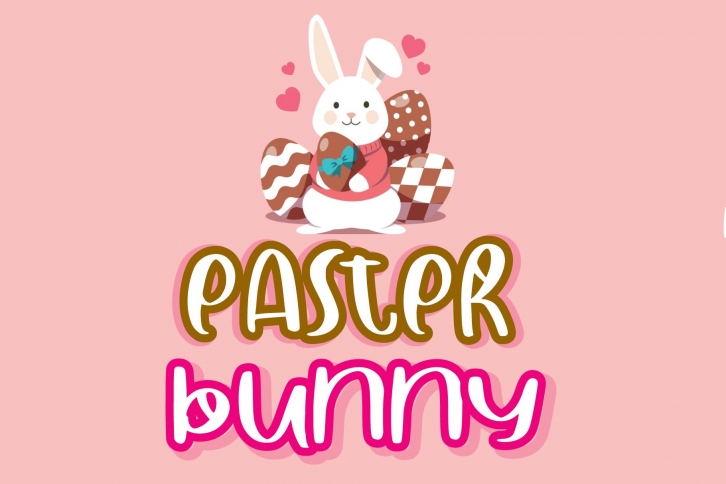
rabbit is a gorgeous font that was realeased on December 9, 2020. The font can be used in many style contexts and design environments. Perfect for invitations, magazines, websites, logos, and more! It was designed by Goodigital13 and the file size is 4.82 MB. Thanks for checking out this font!